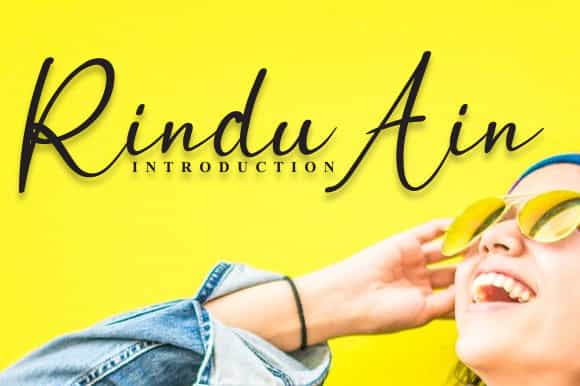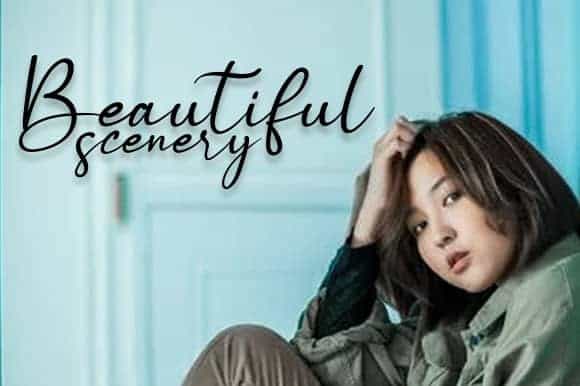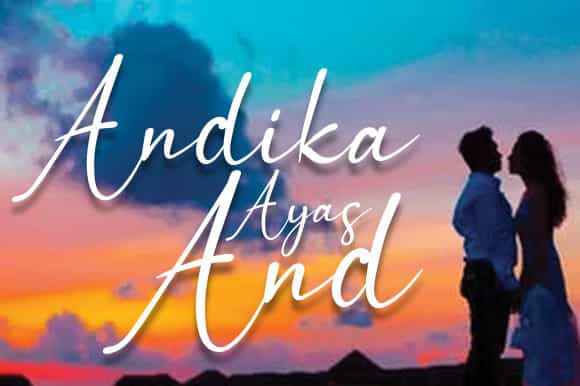
Discover Rindu Ain Calligraphy Font, part of the Calligraphy collection—a versatile and unique font perfect for adding a personal touch to your projects. Download it for free and enjoy crafting designs with style, from invitations to social media posts. This font is available exclusively for personal use, giving you the freedom to create without limits. Unlock your creativity with Rindu Ain Calligraphy Font today!
These are some areas where Rindu Ain Font is good for use; wall prints, wedding invitations, social media icons, ads, and packaging photography. It is something that can elevate the appearance of any project to the next level.